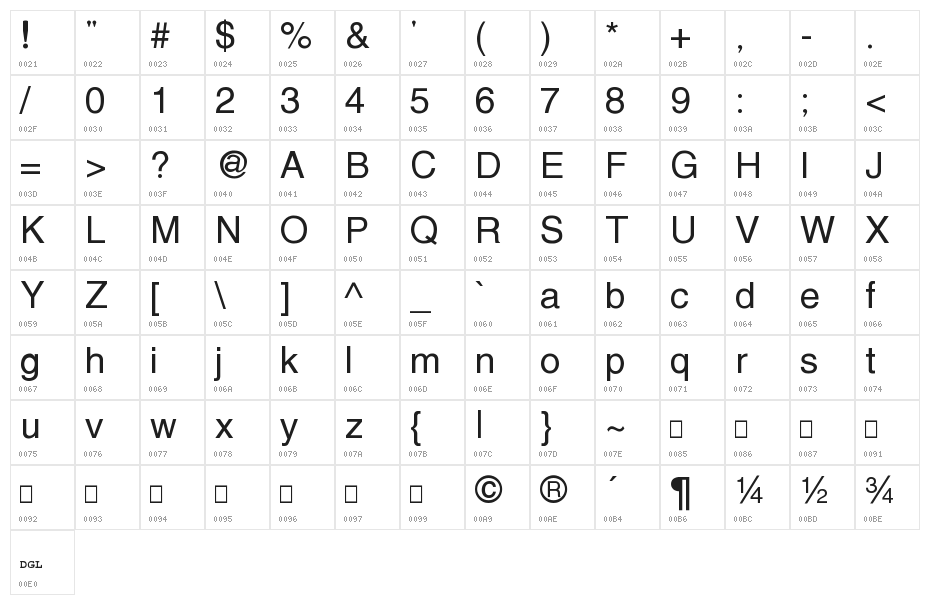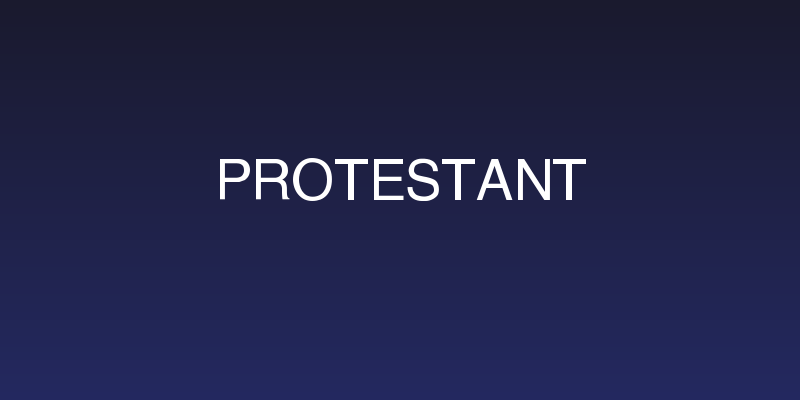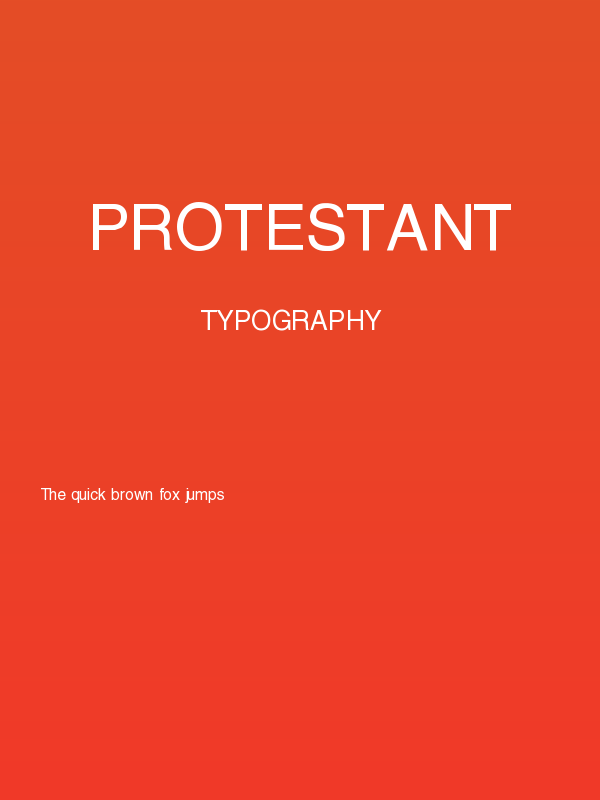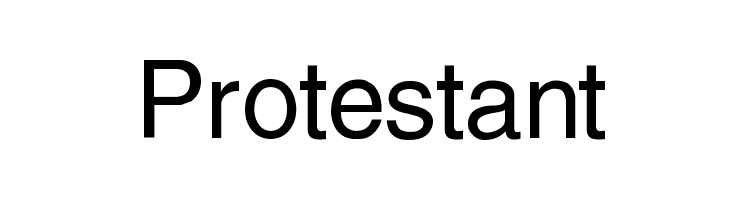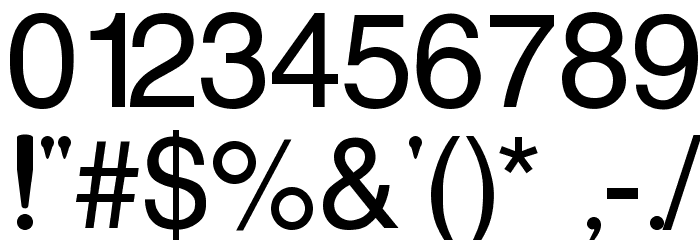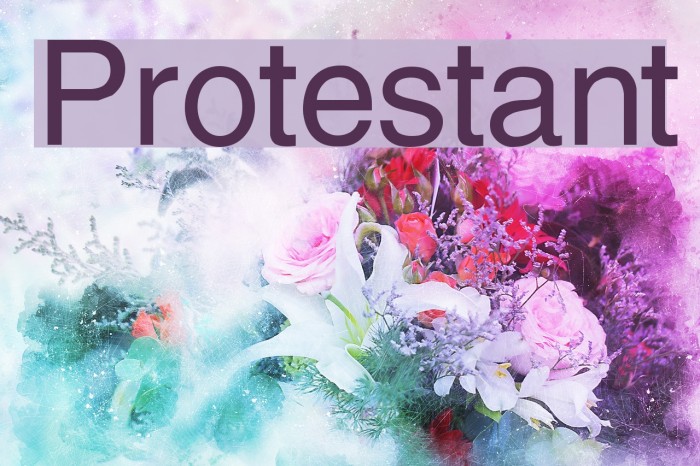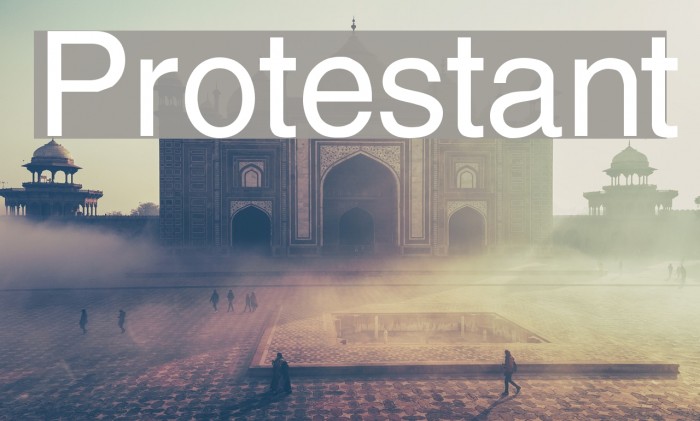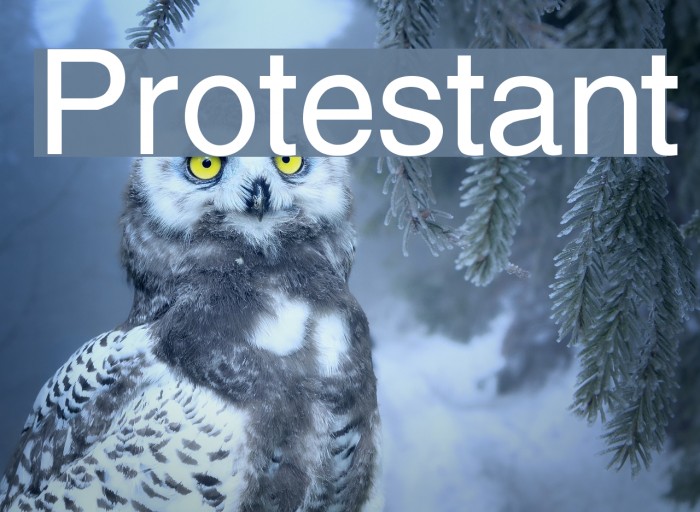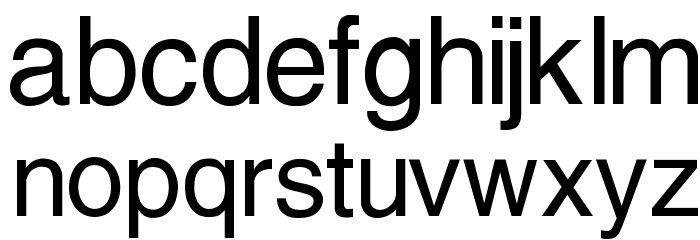
Protestant Font
Protestant Description
This font features a clean and modern sans-serif design, characterized by its simplicity and readability. The letters are evenly spaced with a consistent stroke width, providing a balanced and harmonious appearance. The uppercase and lowercase letters maintain a uniform height, contributing to a cohesive look. The numerals are clear and distinct, making them easily legible. Special characters are well-integrated, maintaining the overall aesthetic of the font. Its straightforward design makes it versatile for various applications.
| Use Case | Headlines, Body text, Logos |
| Proposed Projects | Ideal for corporate branding, web design, user interfaces, and print materials where clarity and modernity are essential. |